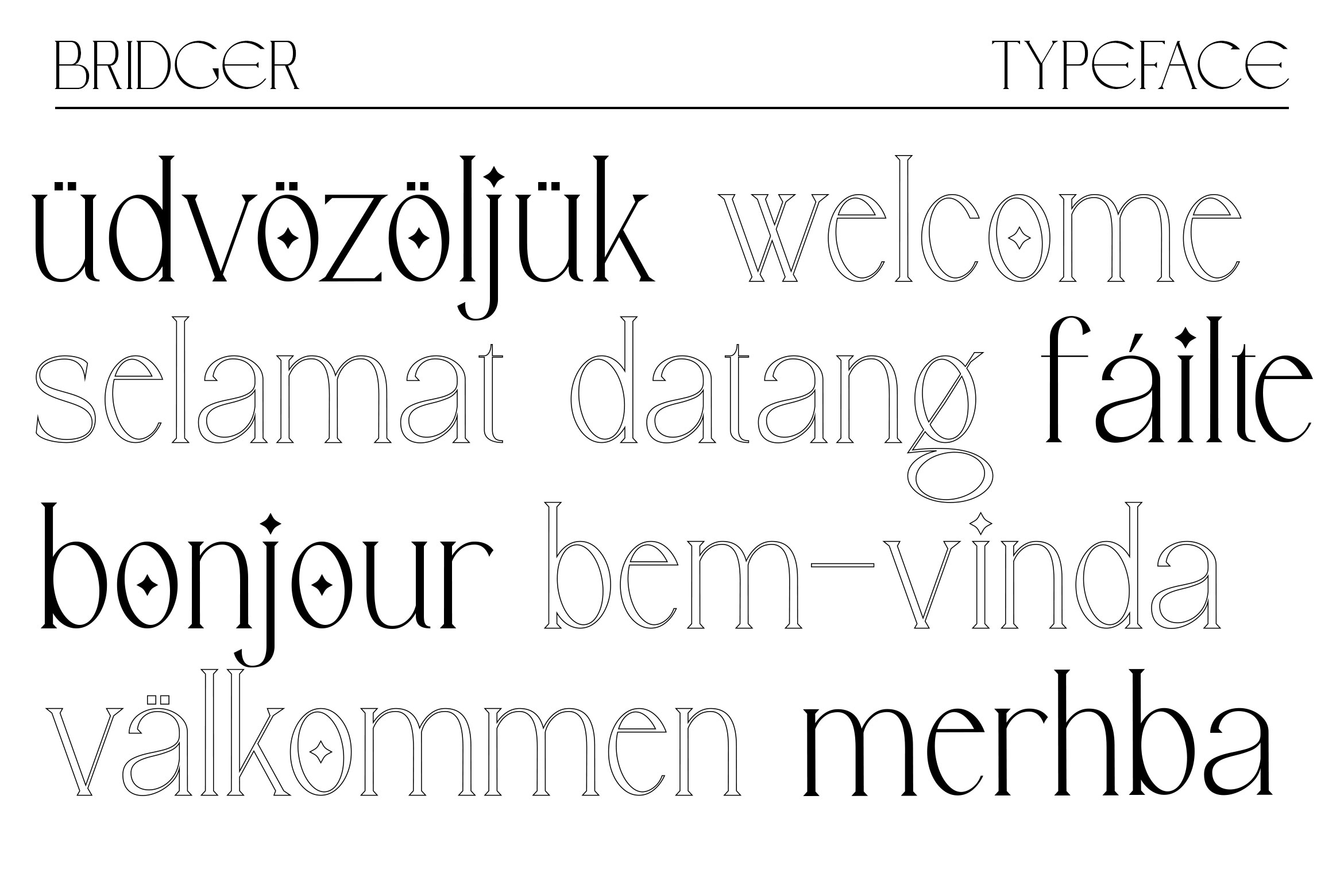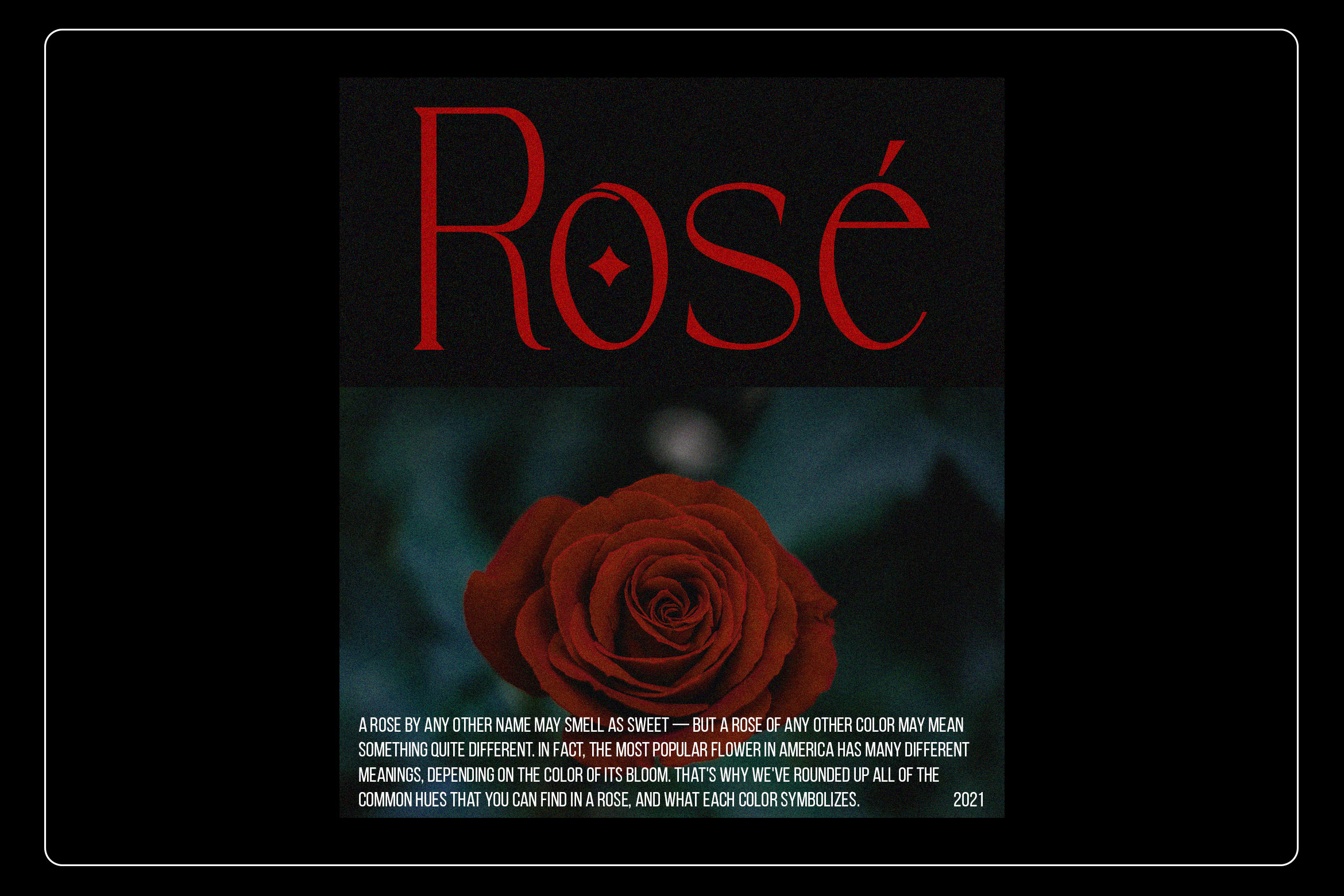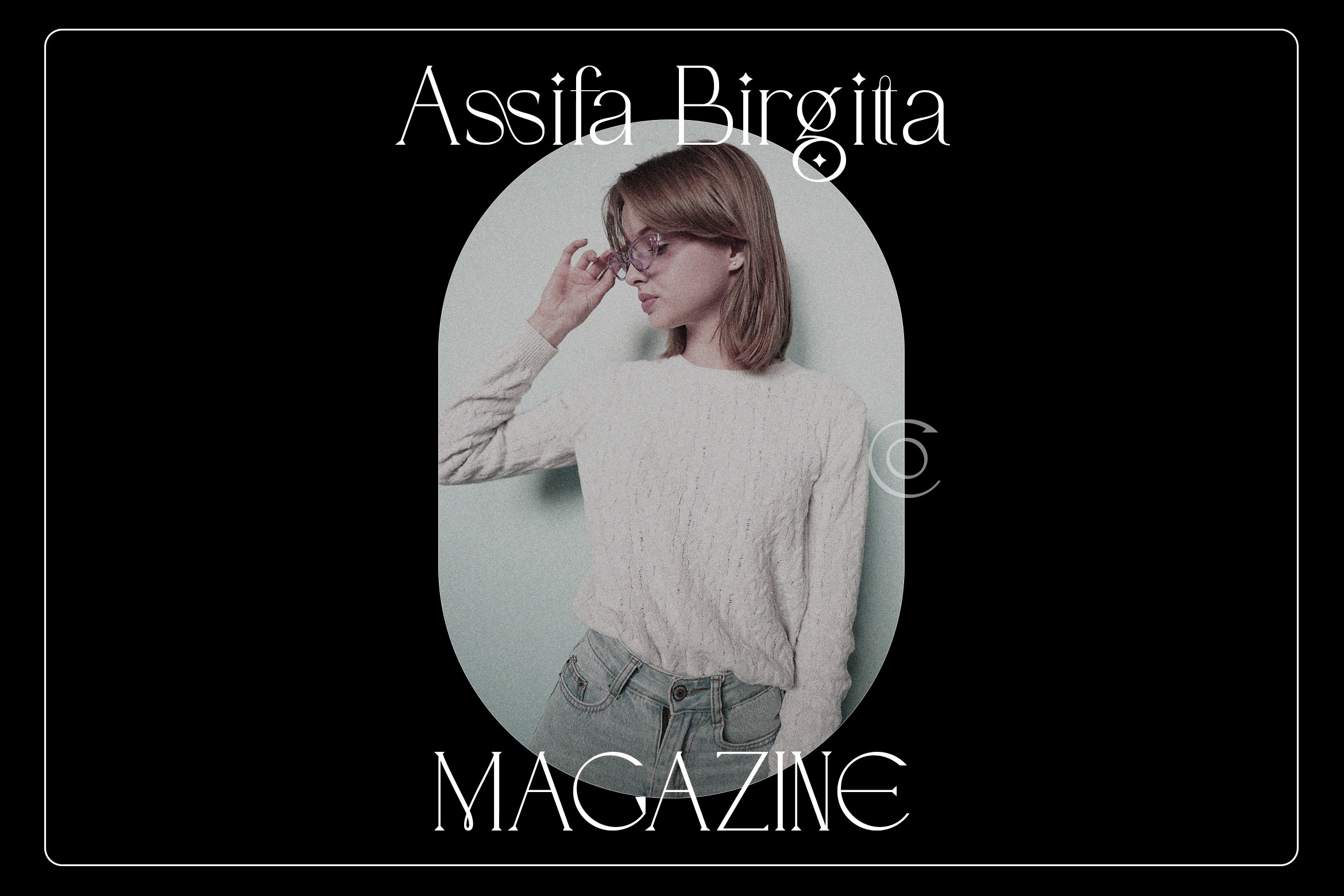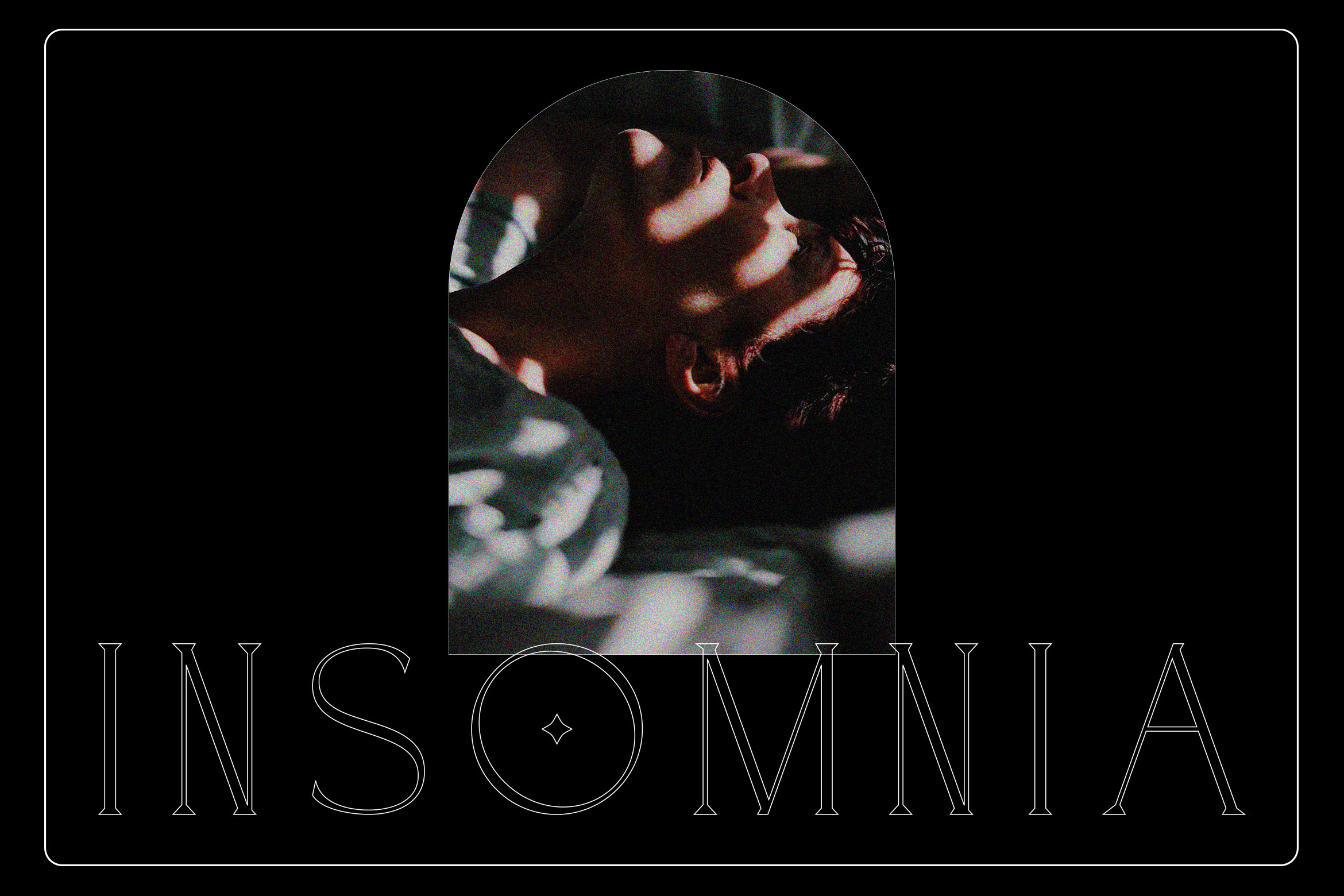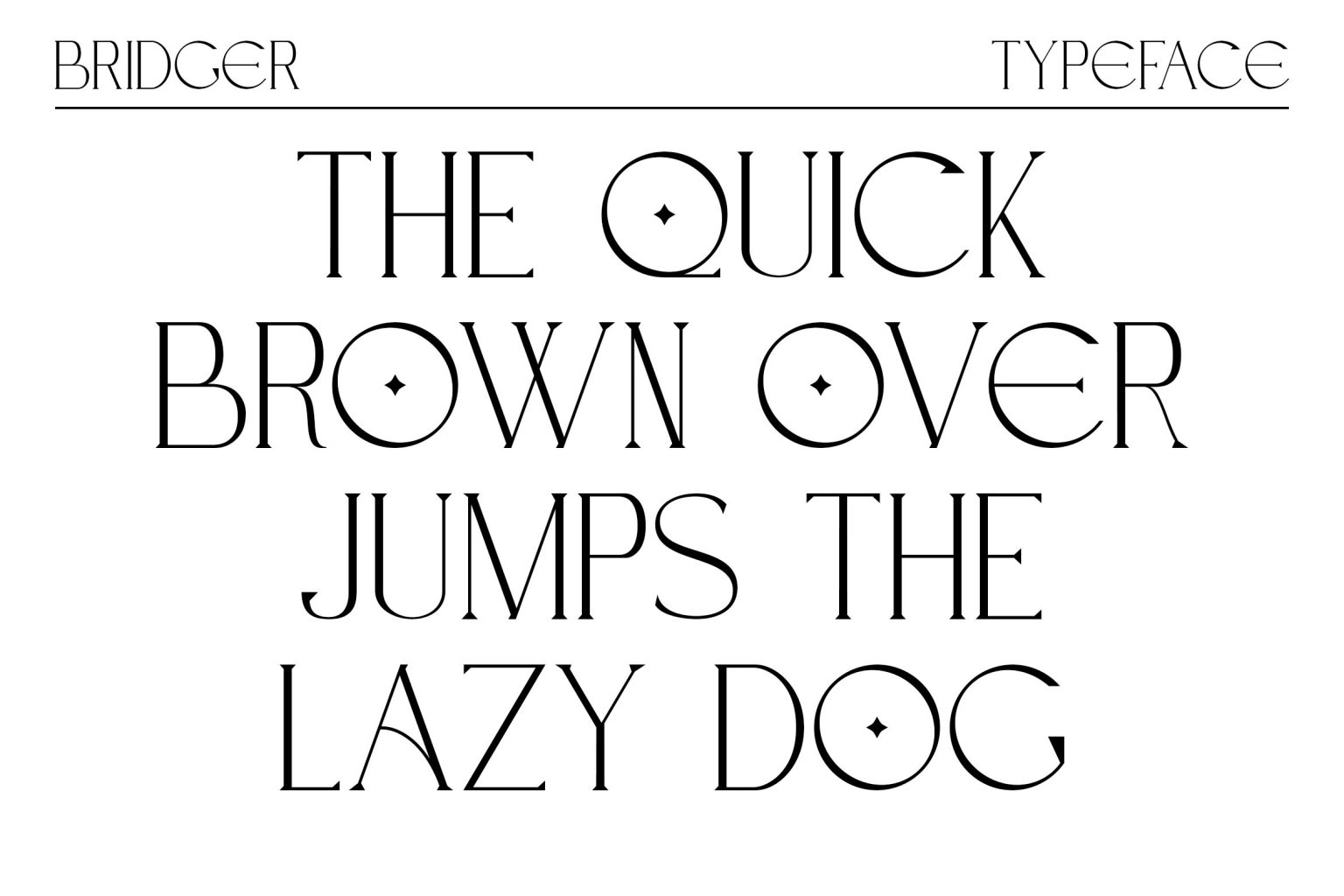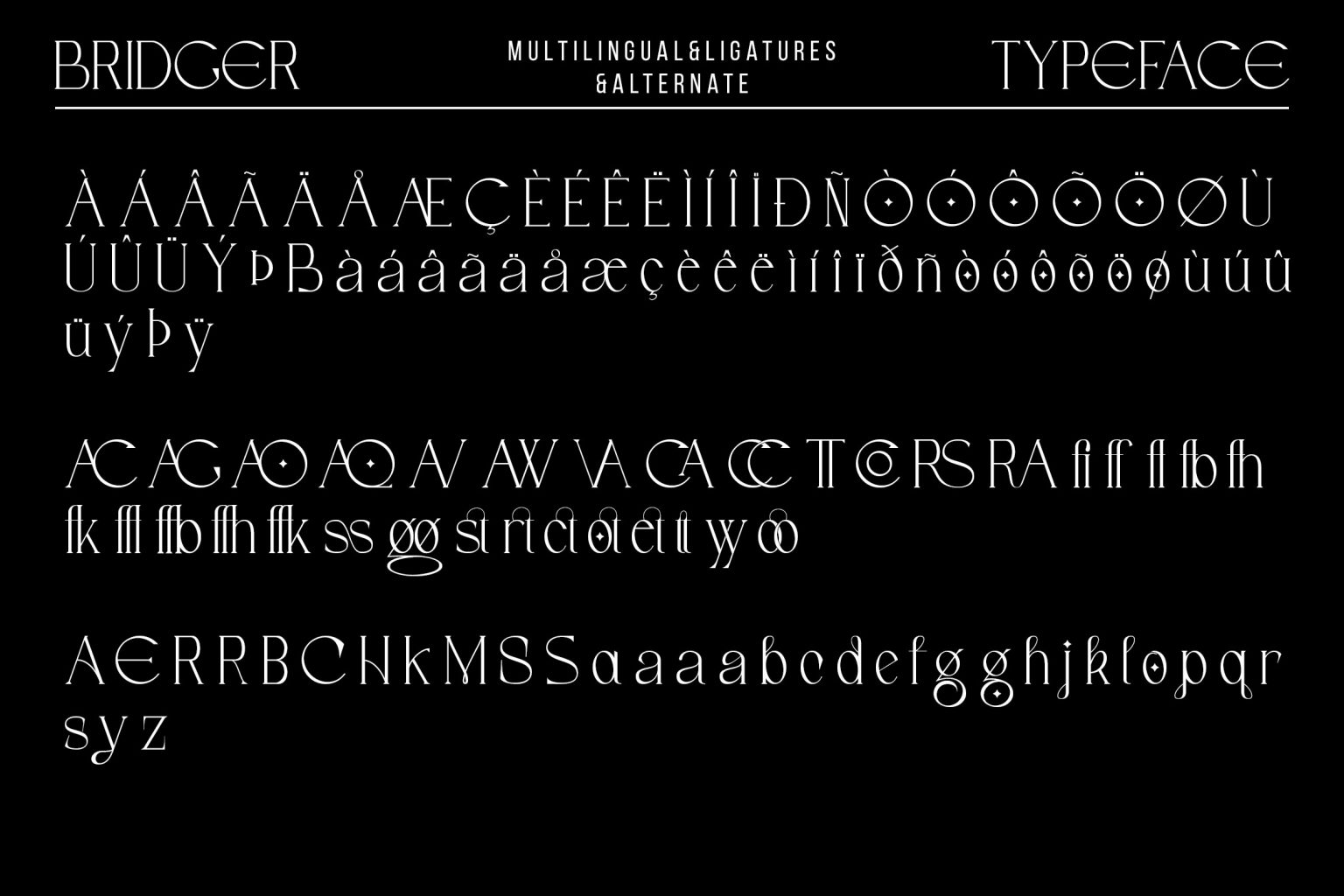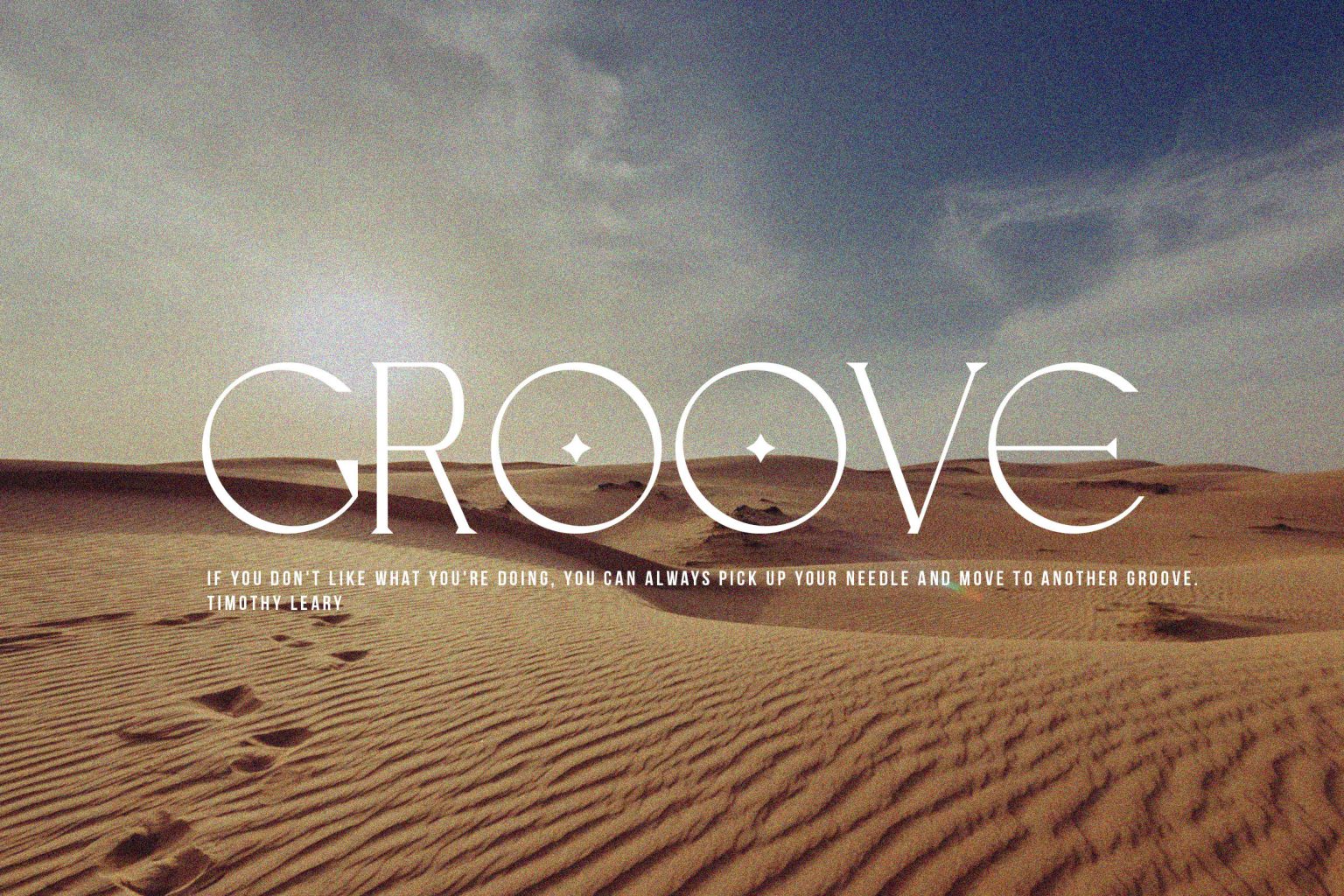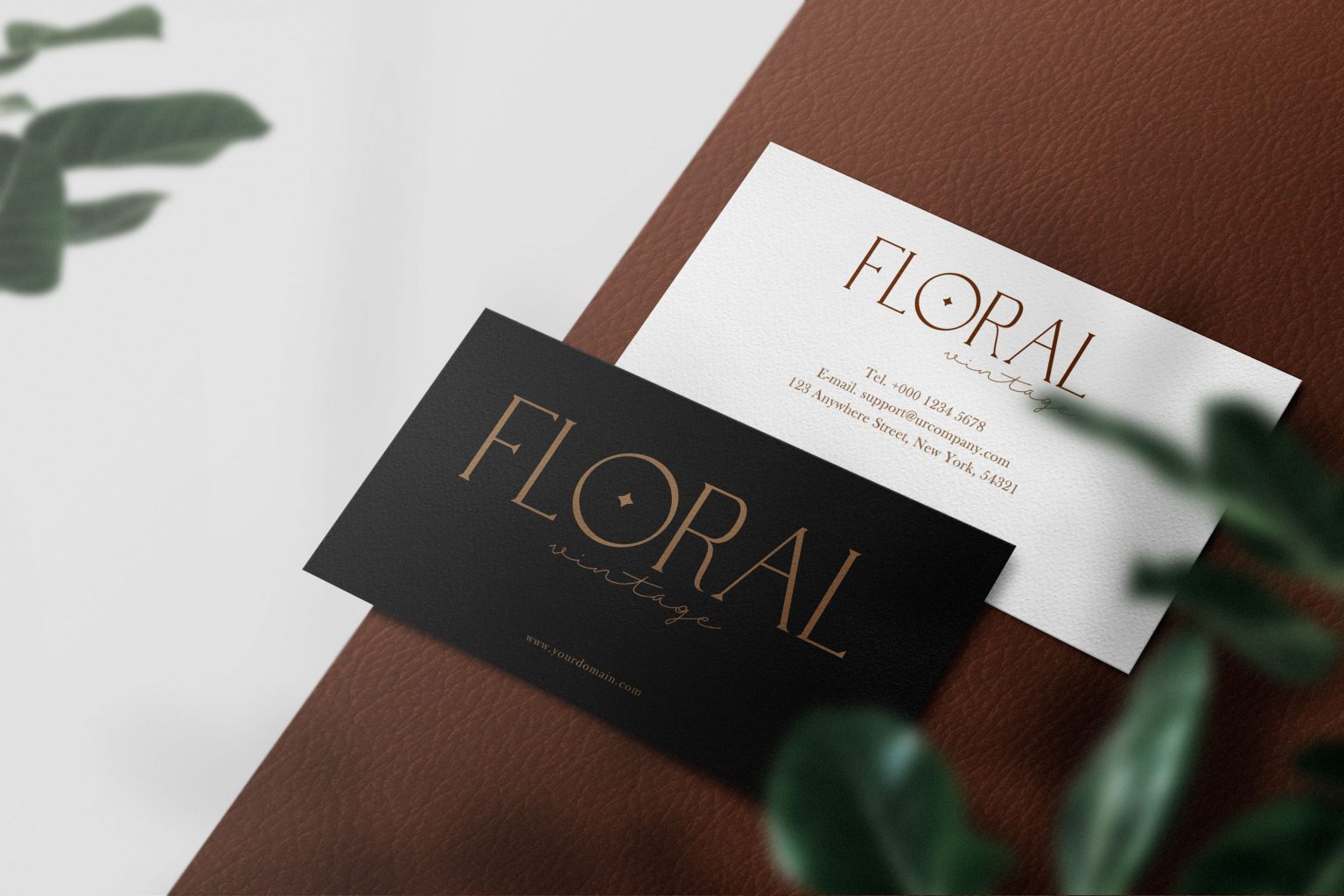
Bridger
Introducing Bridger Typeface is serif font look elegant and Simple letter shapes with playful ligatures, keeping its legibility high.
Create unique & elegant logotype, use it as an elegant for your next project headlines, logotype designs,
posters or t-shirts, business cards.
• Ton of glyphs
• Ligature & Alternate
• Fonts include multilingual support for; Afrikaans, Albanian, Czech, Danish, Dutch, English, Estonian, Finnish, French, German, Hungarian, Italian, Latvian, Lithuanian, Norwegian, Polish, Portuguese, Slovak, Slovenian, Spanish, Swedish.